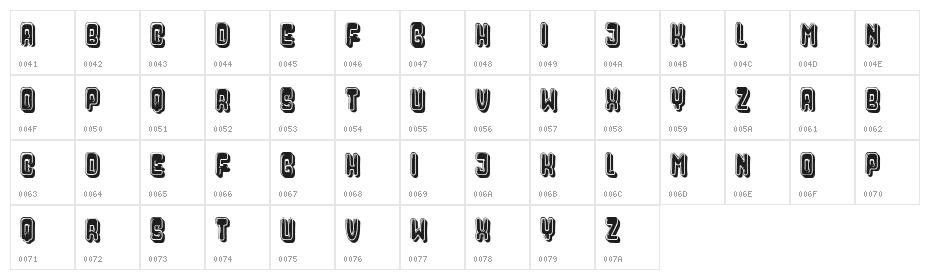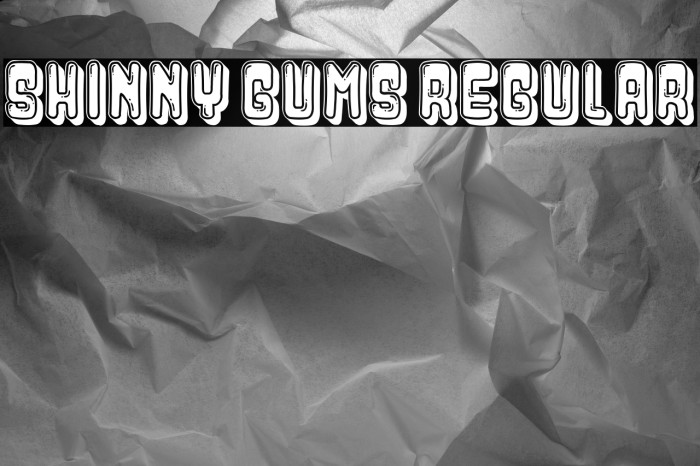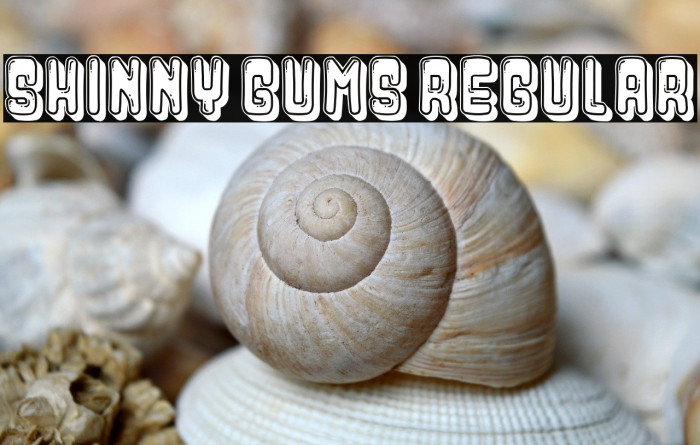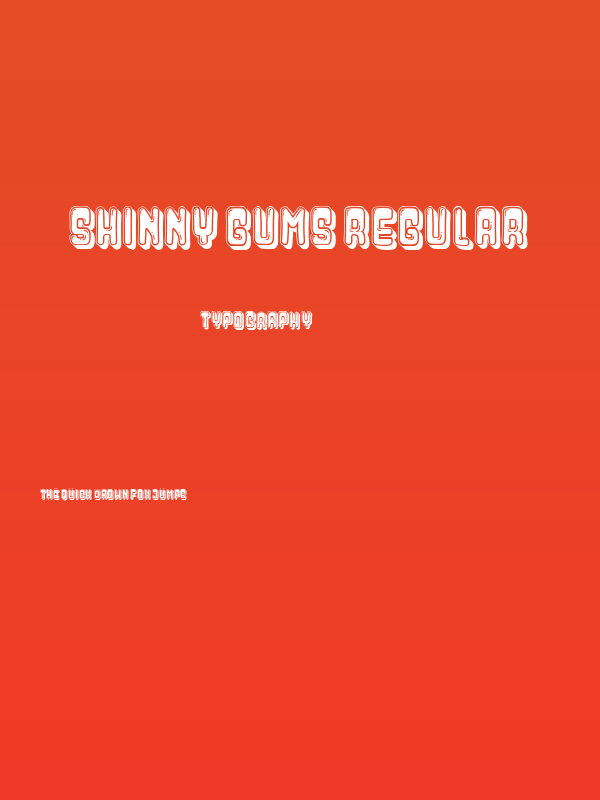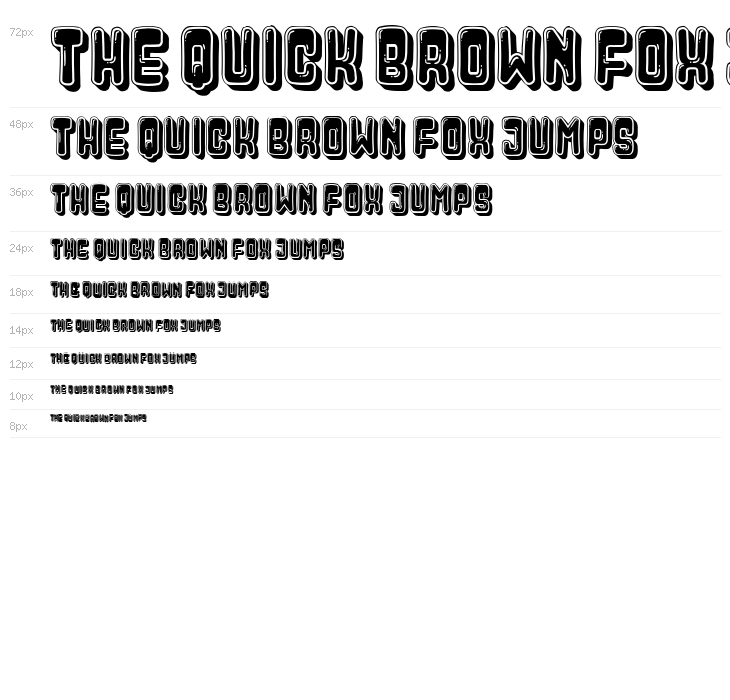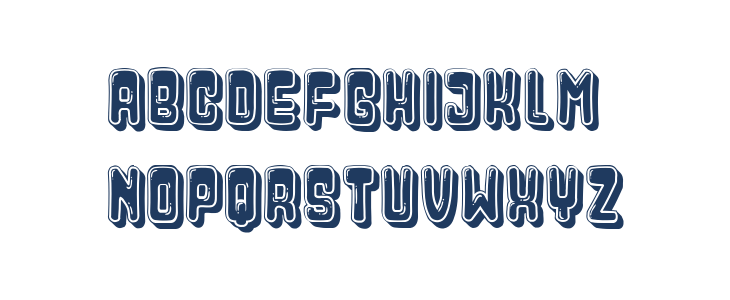
Shinny Gums Regular Font
Shinny Gums Regular Description
This font features a bold, playful design with a three-dimensional effect that gives it a shiny, bubble-like appearance. The characters are outlined with a thick black border, enhancing their visibility and adding a sense of depth. The interior of each letter is filled with a glossy white, creating a striking contrast with the outline. The style is reminiscent of retro or cartoon aesthetics, making it ideal for projects that require a fun and eye-catching typeface. The uppercase letters are uniformly styled, maintaining consistency across the alphabet.
| Overall Style | Playful, Retro, Decorative |
| Proposed Projects | Ideal for children's book covers, playful branding, party invitations, and retro-themed designs. |